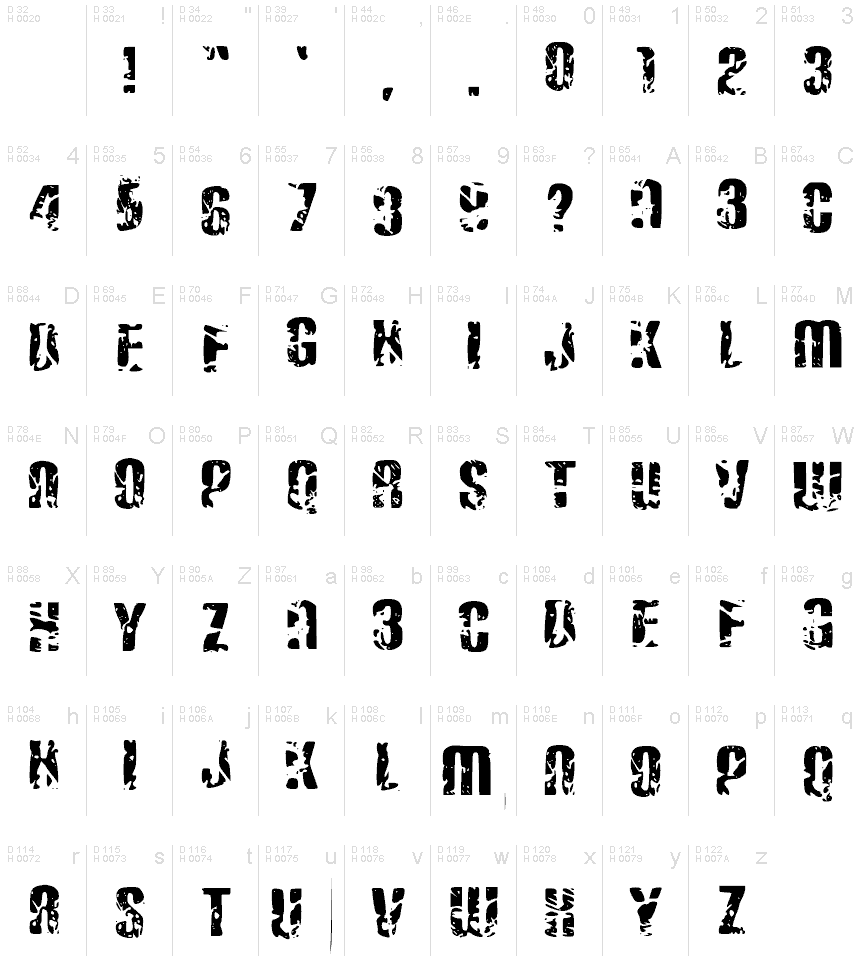
Ep Caution Tape Bb Regular
Ep Caution Tape Bb font is a chaotic and grungy display typeface with eroded bold characters. Its rebellious feel is derived from its rough surface effects and distressed textures. A font with a vintage poster inspiration made to grab attention by stepping out of the ordinary.
Utilize this free display font for retro concert posters, brochure covers, labels and packaging designs, t-shirt print designs, logos, typography artwork, or comic titles. The grunge look works well in all types of visual content especially digital media and advertisements.